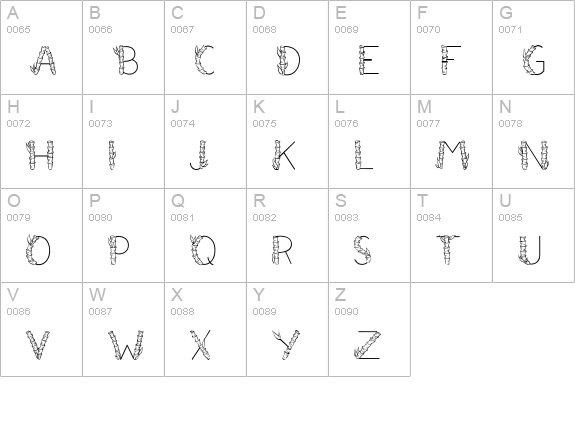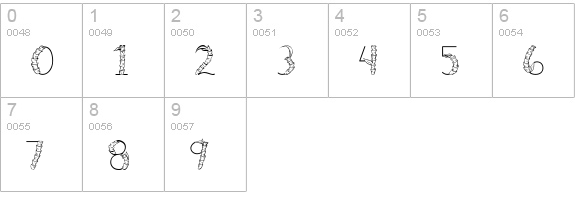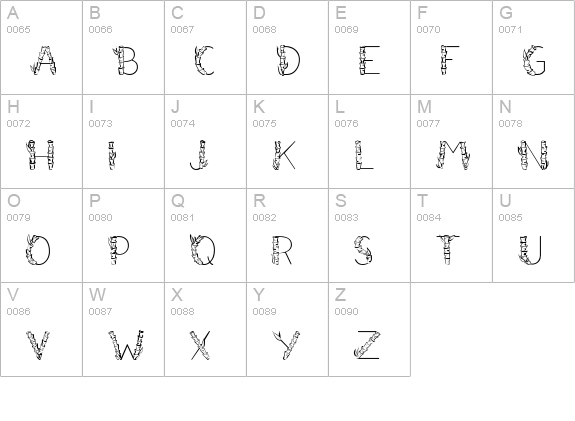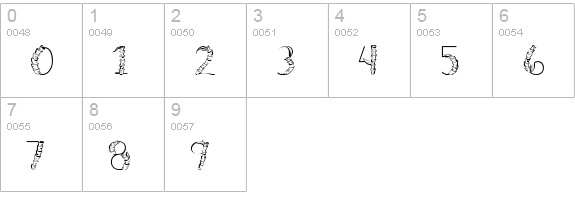
CK Stalk Font Details
Introducing CK Stalk Font - a whimsical and charming typeface that exudes a playful and adventurous spirit. With its unique and eye-catching design, CK Stalk Font is perfect for a wide range of creative projects, from branding to posters to social media graphics. This delightful font features quirky letterforms that are both bold and lively, adding a touch of personality to any design. Whether you're looking to create a fun and engaging look or simply want to add a touch of whimsy to your work, CK Stalk Font is sure to captivate your audience. The best part? CK Stalk Font is completely free to download at FontsMarket.com, making it accessible to designers and creatives of all levels. Don't miss out on this opportunity to add a touch of whimsy to your projects with CK Stalk Font - download it today and let your creativity soar!